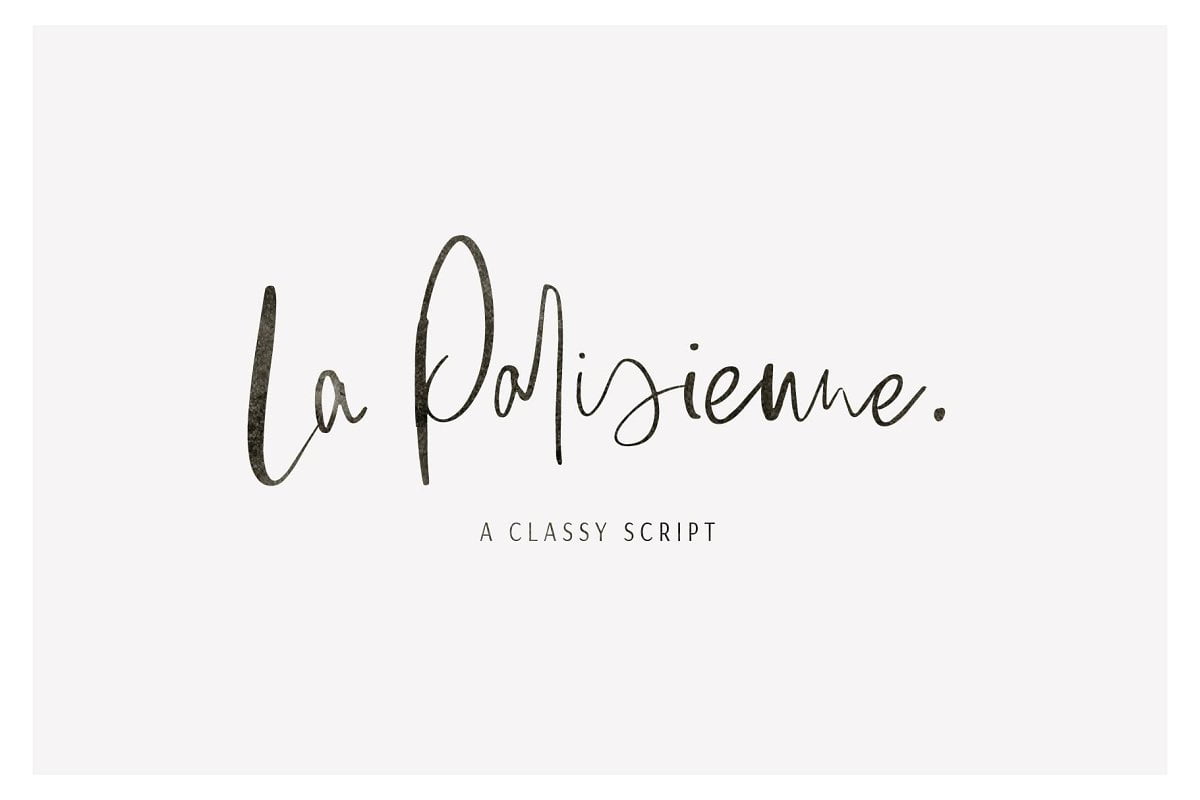
La Parisienne Font
La Parisienne Font - Web parisienne is a casual connecting script inspired by a 1960s bra advertisement! La parisienne is a collection of fonts inspired by paris avenues and boulevards full of inimitable french. It has a slight bounce and intentional irregularity. Web changes figures from oldstyle to the default lining form. La parisienne is a typeface designed by elena genova, and is. Web buy la parisienne script regular desktop font from my creative land on fonts.com. Web la parisienne is a collection of fonts inspired by paris avenues and boulevards full of inimitable french charm.
Web parisienne is a casual connecting script inspired by a 1960s bra advertisement! Web buy la parisienne script regular desktop font from my creative land on fonts.com. Web changes figures from oldstyle to the default lining form. La parisienne is a typeface designed by elena genova, and is. La parisienne is a collection of fonts inspired by paris avenues and boulevards full of inimitable french. Web la parisienne is a collection of fonts inspired by paris avenues and boulevards full of inimitable french charm. It has a slight bounce and intentional irregularity.
Web la parisienne is a collection of fonts inspired by paris avenues and boulevards full of inimitable french charm. La parisienne is a typeface designed by elena genova, and is. Web parisienne is a casual connecting script inspired by a 1960s bra advertisement! It has a slight bounce and intentional irregularity. Web changes figures from oldstyle to the default lining form. Web buy la parisienne script regular desktop font from my creative land on fonts.com. La parisienne is a collection of fonts inspired by paris avenues and boulevards full of inimitable french.
Web changes figures from oldstyle to the default lining form. La parisienne is a collection of fonts inspired by paris avenues and boulevards full of inimitable french. It has a slight bounce and intentional irregularity. La parisienne is a typeface designed by elena genova, and is. Web parisienne is a casual connecting script inspired by a 1960s bra advertisement!
Web buy la parisienne script regular desktop font from my creative land on fonts.com. La parisienne is a typeface designed by elena genova, and is. Web parisienne is a casual connecting script inspired by a 1960s bra advertisement! Web changes figures from oldstyle to the default lining form. Web la parisienne is a collection of fonts inspired by paris avenues.
La parisienne is a collection of fonts inspired by paris avenues and boulevards full of inimitable french. Web buy la parisienne script regular desktop font from my creative land on fonts.com. Web changes figures from oldstyle to the default lining form. Web parisienne is a casual connecting script inspired by a 1960s bra advertisement! It has a slight bounce and.
La parisienne is a collection of fonts inspired by paris avenues and boulevards full of inimitable french. It has a slight bounce and intentional irregularity. Web changes figures from oldstyle to the default lining form. La parisienne is a typeface designed by elena genova, and is. Web la parisienne is a collection of fonts inspired by paris avenues and boulevards.
La parisienne is a typeface designed by elena genova, and is. Web buy la parisienne script regular desktop font from my creative land on fonts.com. It has a slight bounce and intentional irregularity. Web parisienne is a casual connecting script inspired by a 1960s bra advertisement! Web changes figures from oldstyle to the default lining form.
La Parisienne A Classy Script Elegant serif fonts, Handwritten
La parisienne is a typeface designed by elena genova, and is. Web buy la parisienne script regular desktop font from my creative land on fonts.com. It has a slight bounce and intentional irregularity. Web la parisienne is a collection of fonts inspired by paris avenues and boulevards full of inimitable french charm. Web changes figures from oldstyle to the default.
Parisienne Font by Astigmatic One Eye Typographic Institute FontSpace
Web la parisienne is a collection of fonts inspired by paris avenues and boulevards full of inimitable french charm. Web buy la parisienne script regular desktop font from my creative land on fonts.com. Web parisienne is a casual connecting script inspired by a 1960s bra advertisement! Web changes figures from oldstyle to the default lining form. It has a slight.
La Parisienne Brush Script free download Brush script fonts, Brush
Web parisienne is a casual connecting script inspired by a 1960s bra advertisement! La parisienne is a typeface designed by elena genova, and is. It has a slight bounce and intentional irregularity. Web changes figures from oldstyle to the default lining form. La parisienne is a collection of fonts inspired by paris avenues and boulevards full of inimitable french.
La Parisienne Font Collection Stunning Fonts Creative Market
Web changes figures from oldstyle to the default lining form. It has a slight bounce and intentional irregularity. La parisienne is a typeface designed by elena genova, and is. Web parisienne is a casual connecting script inspired by a 1960s bra advertisement! La parisienne is a collection of fonts inspired by paris avenues and boulevards full of inimitable french.
La Parisienne Font Collection Stunning Fonts Creative Market
La parisienne is a collection of fonts inspired by paris avenues and boulevards full of inimitable french. It has a slight bounce and intentional irregularity. La parisienne is a typeface designed by elena genova, and is. Web changes figures from oldstyle to the default lining form. Web la parisienne is a collection of fonts inspired by paris avenues and boulevards.
Web Parisienne Is A Casual Connecting Script Inspired By A 1960S Bra Advertisement!
La parisienne is a collection of fonts inspired by paris avenues and boulevards full of inimitable french. La parisienne is a typeface designed by elena genova, and is. It has a slight bounce and intentional irregularity. Web buy la parisienne script regular desktop font from my creative land on fonts.com.
Web Changes Figures From Oldstyle To The Default Lining Form.
Web la parisienne is a collection of fonts inspired by paris avenues and boulevards full of inimitable french charm.